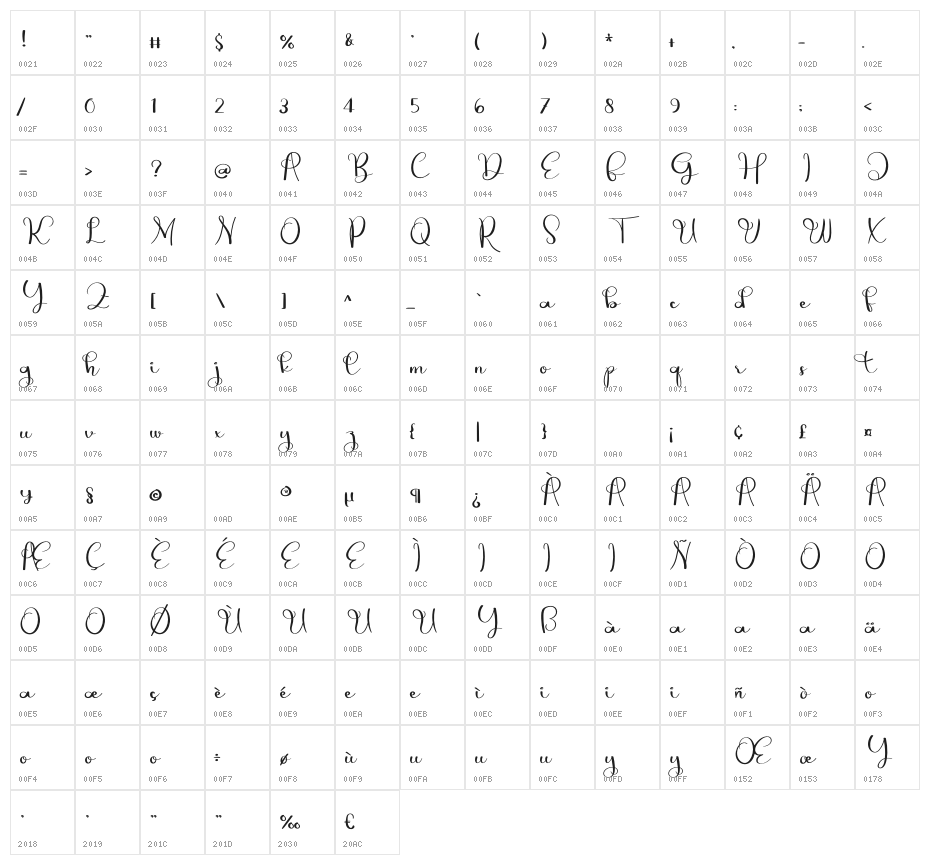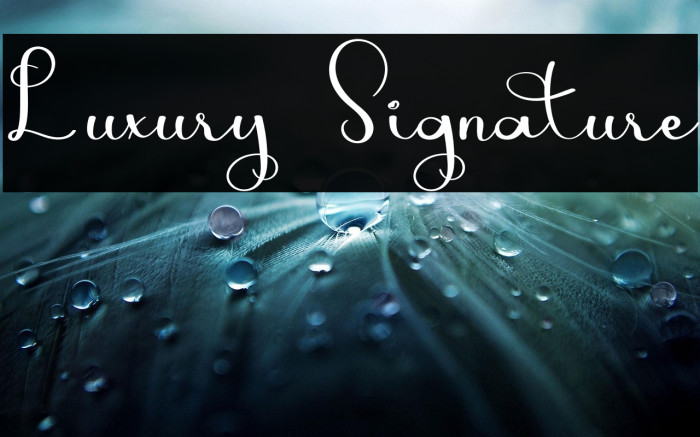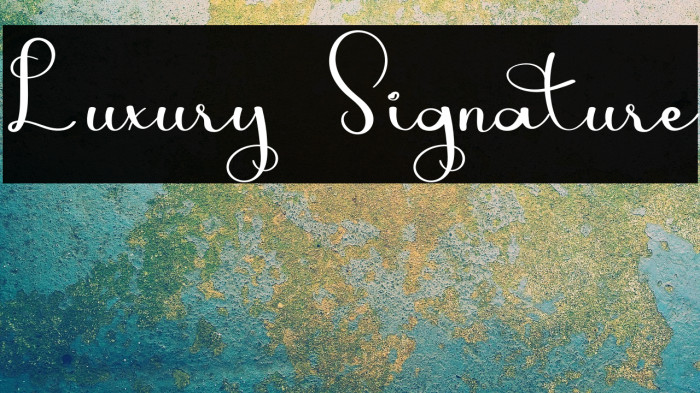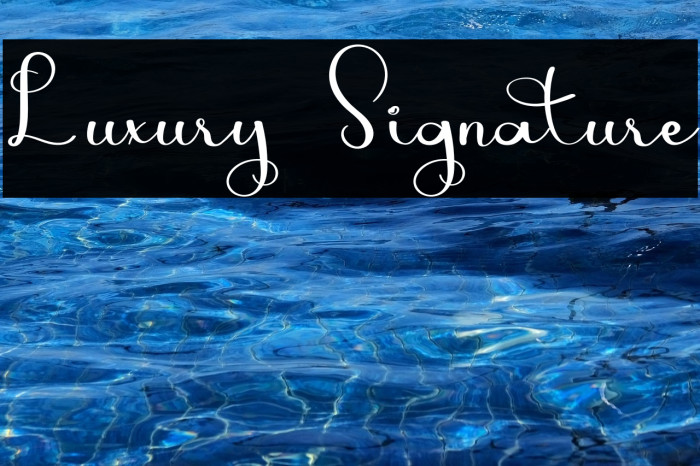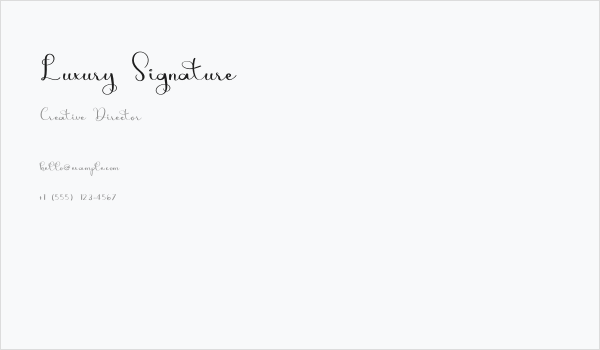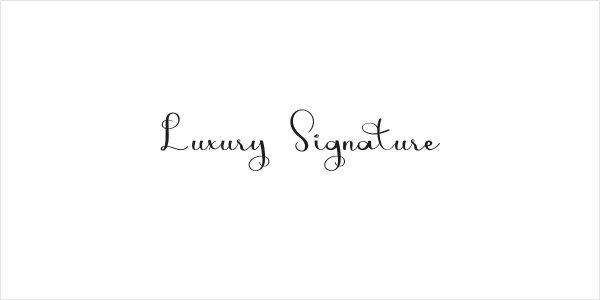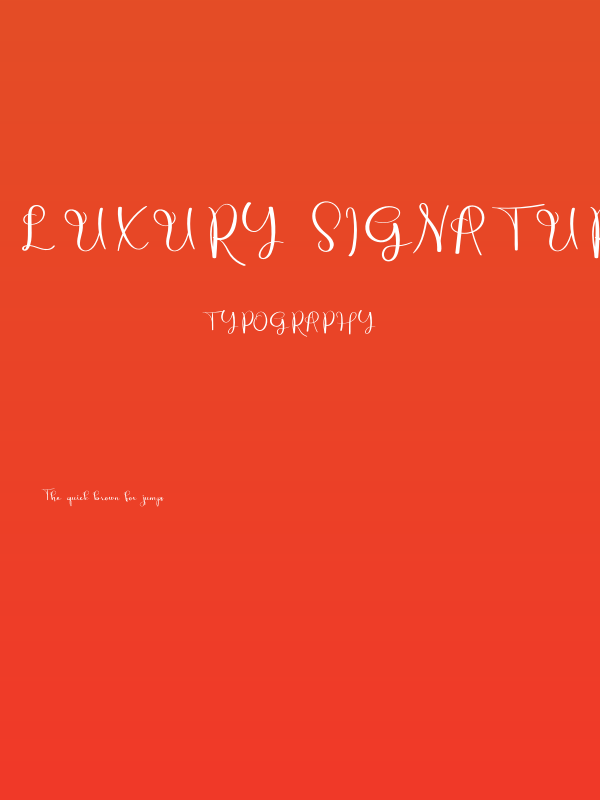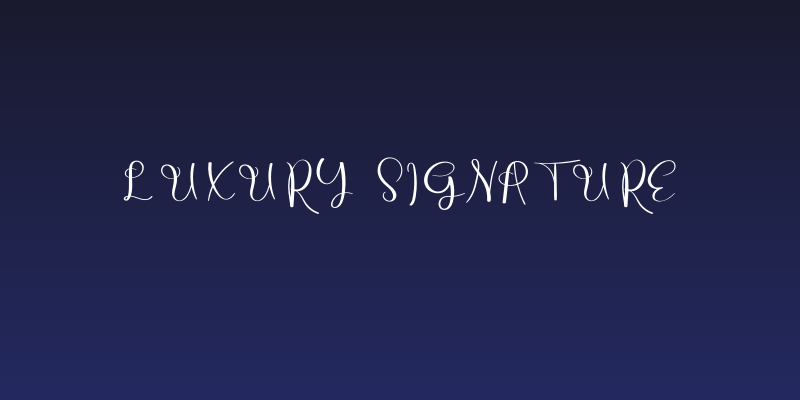
Luxury Signature Font
Luxury Signature Description
This elegant script font exudes sophistication and grace, characterized by its flowing, cursive letterforms that mimic the fluidity of a handwritten signature. The uppercase letters are tall and slender, with delicate loops and swirls that add a touch of luxury. The lowercase letters maintain a consistent style, featuring smooth curves and intricate connections between characters. The numerals are clear and stylish, complementing the overall aesthetic. Special characters are thoughtfully designed, maintaining the font's refined appearance. This font is perfect for projects that require a touch of elegance and class.
| Overall Style | Elegant, Luxurious |
| Proposed Projects | Ideal for wedding invitations, luxury branding, personal signatures, and elegant stationery. |